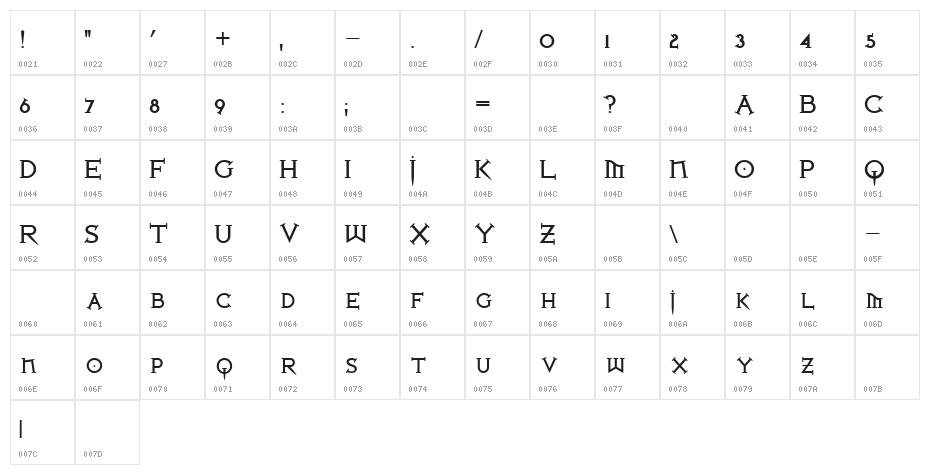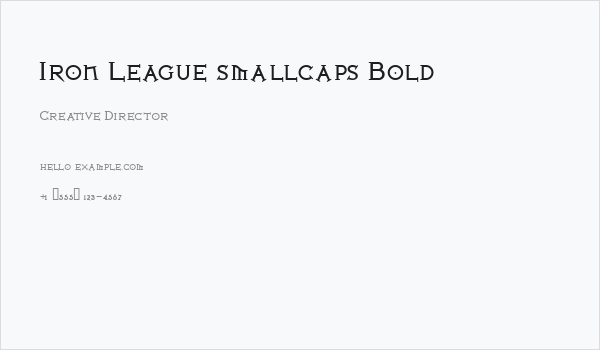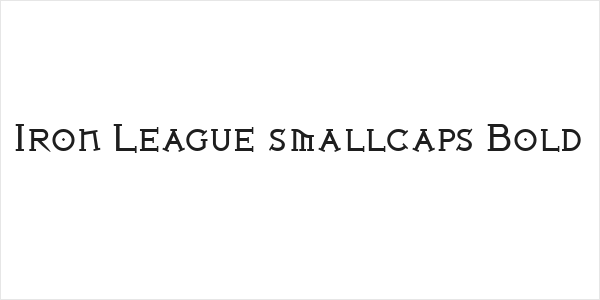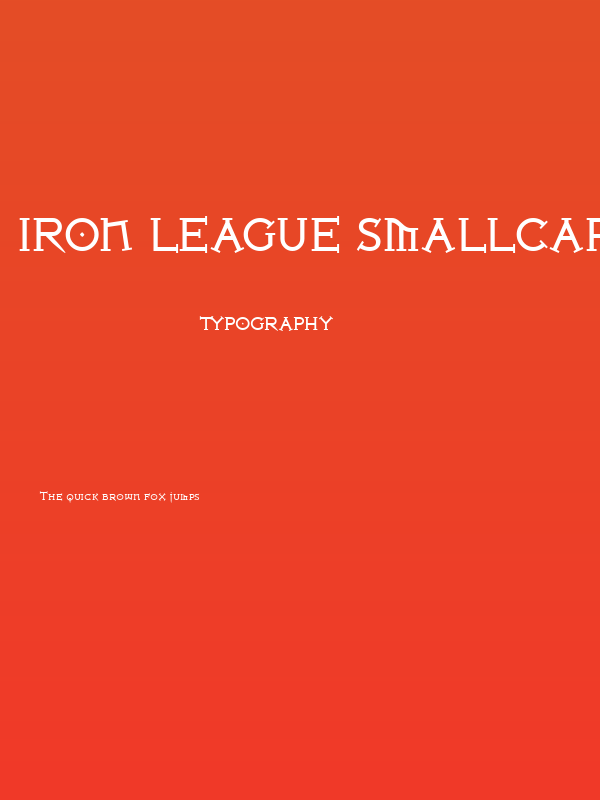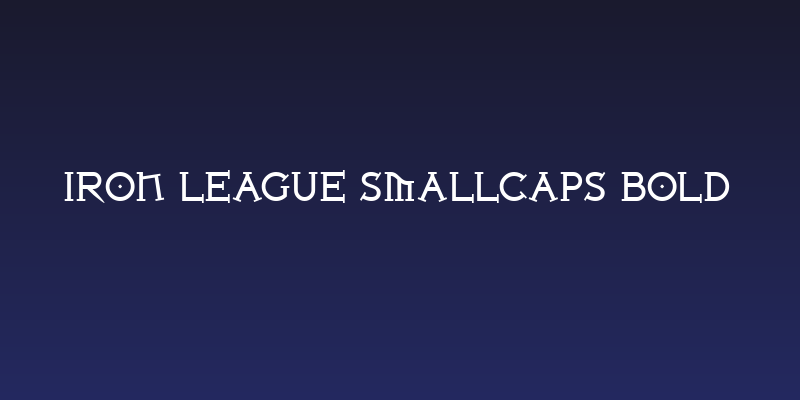
Iron League smallcaps Bold Font
Iron League smallcaps Bold Description
This font features a bold and striking design with a distinct industrial and mechanical aesthetic. The uppercase letters are characterized by sharp, angular lines and unique geometric elements, such as circular cutouts and pointed serifs, giving it a futuristic and robust appearance. The lowercase letters maintain the same boldness and angularity, ensuring consistency throughout the typeface. The numerals are equally bold, with a uniform width that complements the overall design. Special characters are crafted with the same attention to detail, making them suitable for a variety of design applications.
| Proposed Projects | Ideal for branding, posters, video game titles, and any project requiring a strong, modern aesthetic. |